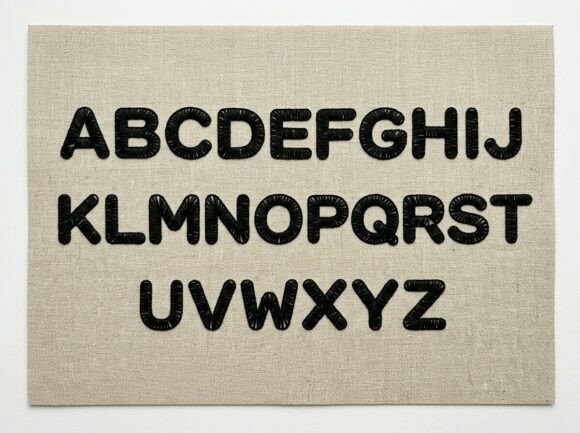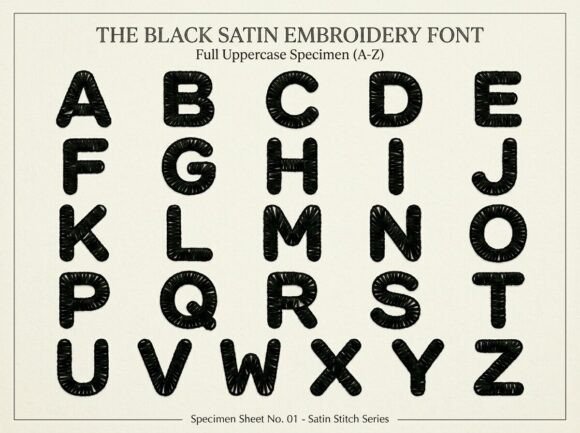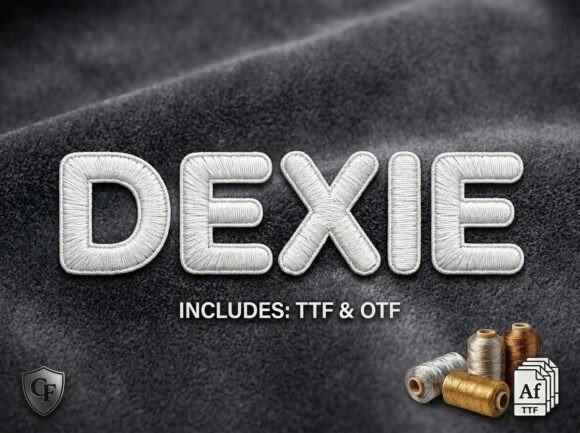
Introducing Dexie Font: The Ultimate Decorative Display Font
Are you tired of using the same old fonts for your designs? Look no further than Dexie Font, a stunning decorative display font that’s sure to turn heads. With its unique artistic elements and strong visual personality, this font is perfect for creators who want to break away from the ordinary and make a statement.
What is Dexie Font?
Dexie Font is a decorative display font designed to be the center of attention. Its unique artistic elements and strong visual personality make it perfect for bold headlines, artistic logos, and creative packaging. This font is versatile enough to be used in a variety of design projects, from branding and advertising to packaging and signage.
Key Features of Dexie Font
- Unique Artistic Elements: Dexie Font features unique artistic elements that set it apart from other fonts. Each letter is carefully crafted to make a statement and add a touch of elegance to your designs.
- Strong Visual Personality: This font has a strong visual personality that’s sure to grab attention. Its bold and eye-catching design makes it perfect for headlines, logos, and other design elements that need to stand out.
- Versatile: Dexie Font is versatile enough to be used in a variety of design projects, from bold headlines and artistic logos to creative packaging and signage.
- Professional and Polished Finish: Despite its bold and artistic design, Dexie Font maintains a professional and polished finish that’s suitable for even the most high-end design projects.
IMPORTANT NOTE BEFORE PURCHASE: Dexie Font is an ALL-CAPS (Uppercase Only) display typeface. It does not include lowercase letters. It is specifically designed for high-impact headlines, logos, and decorative initials where every letter is a work of art.
Who is Dexie Font for?
Dexie Font is perfect for:
- Graphic Designers: If you’re a graphic designer looking for a unique and eye-catching font to add to your collection, Dexie Font is a great choice.
- Branding and Advertising Agencies: If you’re looking for a font that will help your clients stand out from the competition, Dexie Font is a great option.
- Crafters and Makers: If you’re a crafter or maker looking for a font to use on your products, such as packaging, labels, or signage, Dexie Font is a great choice.
- Use it for Headlines: Dexie Font is perfect for headlines, titles, and other design elements that need to stand out.
- Experiment with Different Sizes: Dexie Font looks great in large sizes, but it can also be used in smaller sizes to add a touch of elegance to your designs.
- Pair it with Other Fonts: Dexie Font can be paired with other fonts to create a unique and eye-catching design.
In conclusion, Dexie Font is a stunning decorative display font that’s perfect for creators who want to break away from the ordinary and make a statement. With its unique artistic elements and strong visual personality, this font is sure to turn heads. Whether you’re a graphic designer, branding and advertising agency, or crafter and maker, Dexie Font is a great choice for adding a touch of elegance and sophistication to your designs.